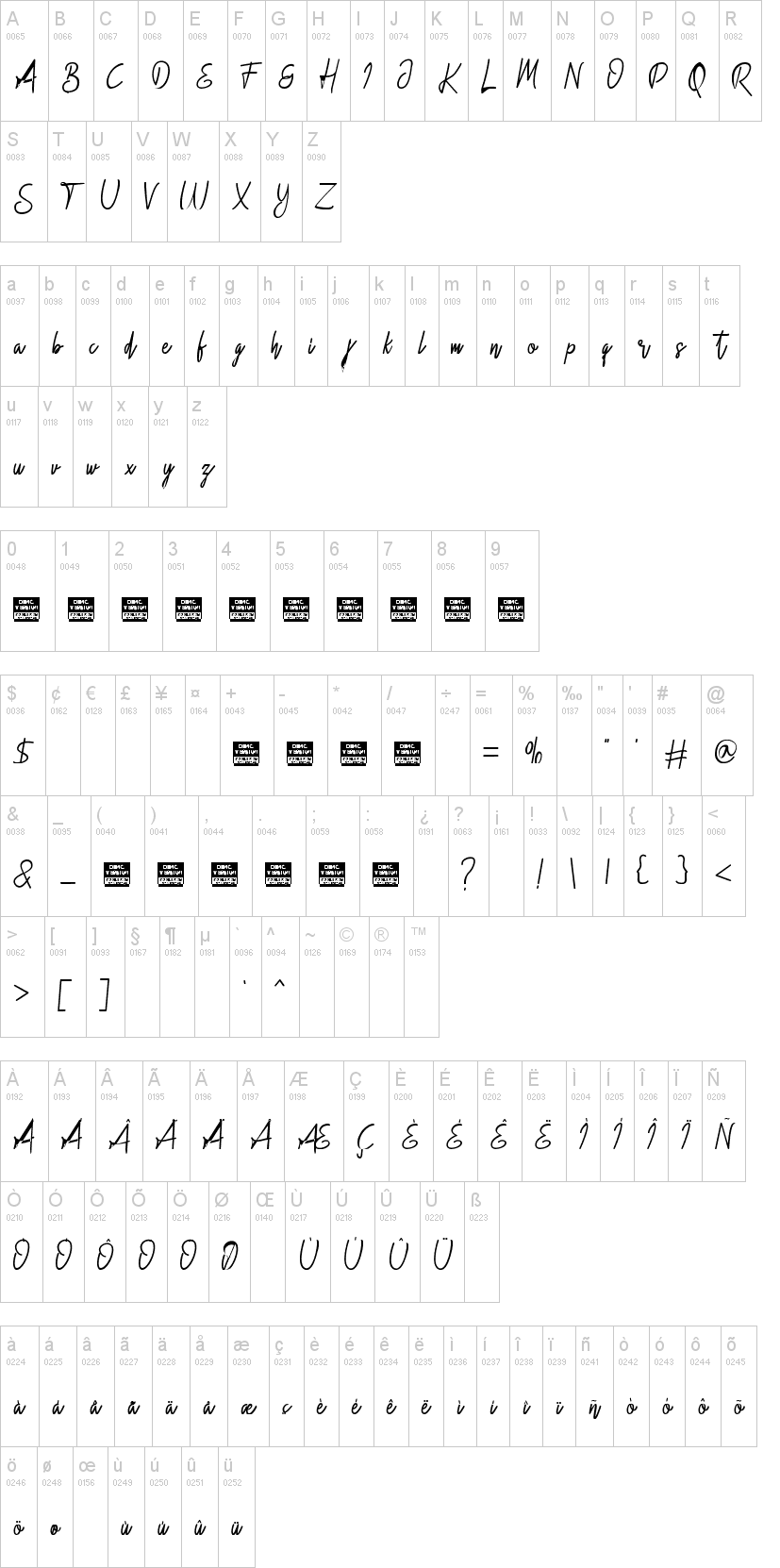
Note of the authorHidario Signature Font, Inspired by signature and stylish handwriting, perfect for many different project such as logos & branding, invitation, stationery, wedding designs, social media posts, advertisements, product packaging, product designs, label, photography, watermark